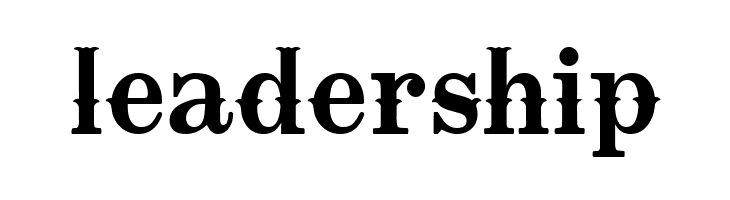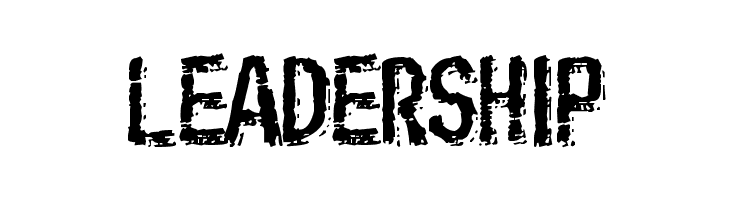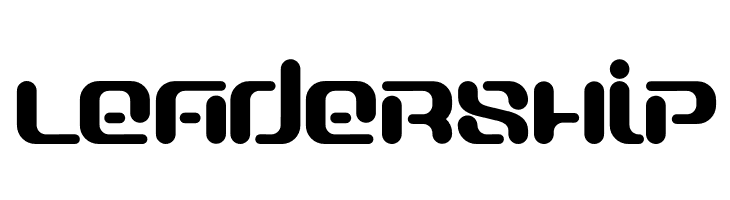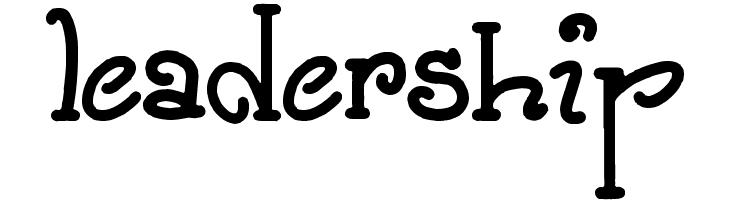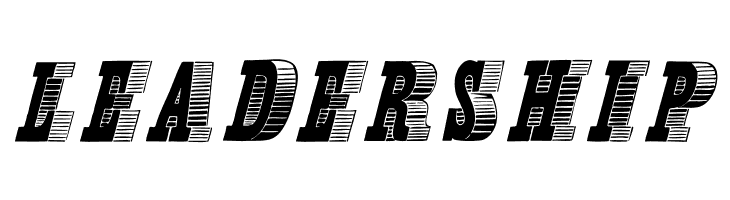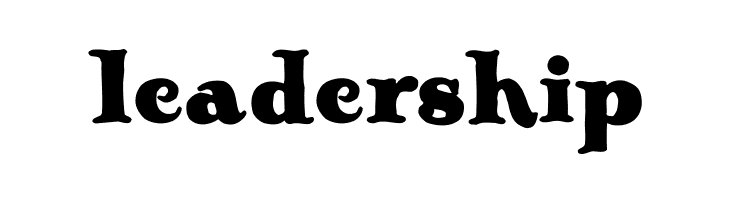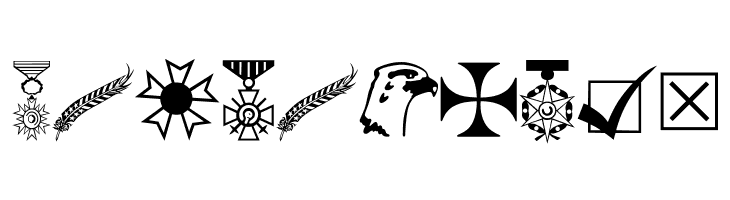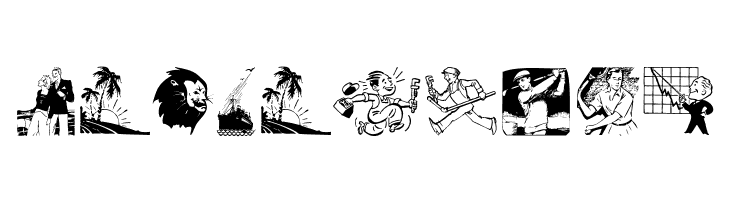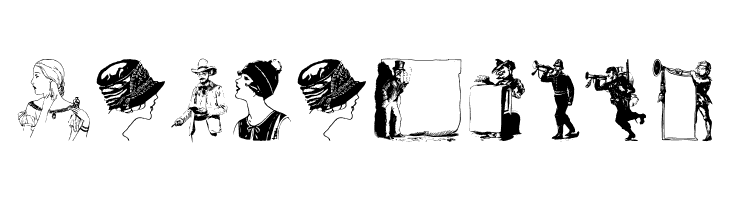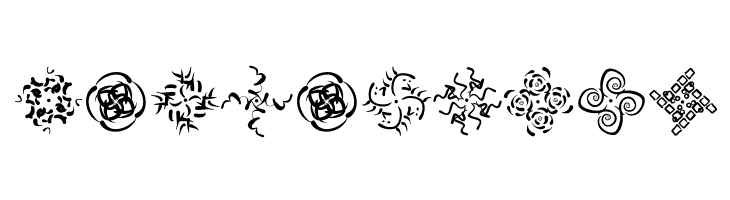
Bold, halftone dot pattern font with a vintage comic book style.
A bold, decorative font with a halftone dot pattern, ideal for vintage or pop art designs.
A bold, geometric font with intricate, angular designs and a futuristic aesthetic.
A decorative, angular font with sharp geometric lines and intricate patterns.
A decorative and intricate font with bold, interconnected loops and swirls.
A playful, decorative font with circular cutouts and a retro vibe.
A bold, heavy font with thick strokes and a playful, rounded style.
A whimsical and abstract decorative font with alien-like figures.
A bold, distressed font with a grunge aesthetic and geometric shapes.
A bold, decorative font with geometric shapes and intricate details.
Ornamental dingbat font with border and corner motifs.
A blackletter font with a typewriter texture, combining historical elegance with a vintage feel.
A quirky, illustrated display font using prize-themed icons as characters.
A playful and artistic font featuring characters with facial features.
A bold, geometric font with a three-dimensional, faceted design.
A playful, bold handwritten font with smooth curves and consistent height.
A graceful and elegant script font with flowing, interconnected characters.
An ornate and decorative font with intricate curves and flourishes.
A bold, playful font with rounded terminals and consistent spacing.
A classic serif font with bold, elegant characters and balanced proportions.
A classic serif font with bold, elegant serifs and a vintage feel.
A pixelated, grid-based font with a retro digital aesthetic.
A bold, decorative font with intricate swirls and flourishes.
A bold, decorative font with ornate swirls and curls, perfect for eye-catching designs.
A playful, hand-drawn font with a bold, fuzzy outline and whimsical style.
A bold, decorative font with a double-line effect, perfect for vintage-inspired designs.